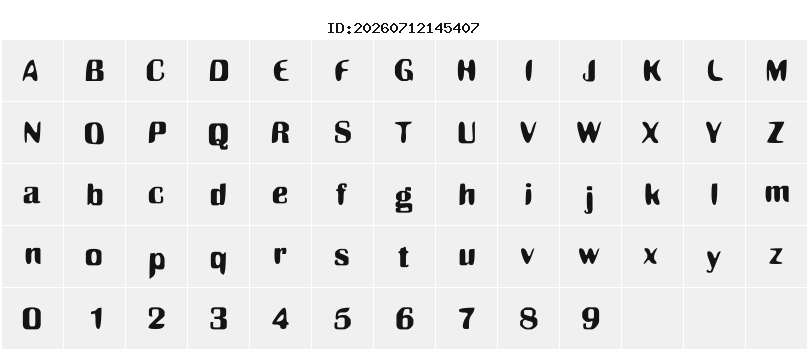
Rat Poison Preview
• Font Name: Rat Poison
• Font Style: Gras
• Font ID: Rat Poison
• Full Font Name: Britannic Bold Gras
• PostScript Name: Rat Poison
About Rat Poison.ttf
Rat Poison.ttf is a modern, elegant sans-serif font designed for ultimate readability and visual harmony. Perfect for branding, headlines, web design, and print materials.